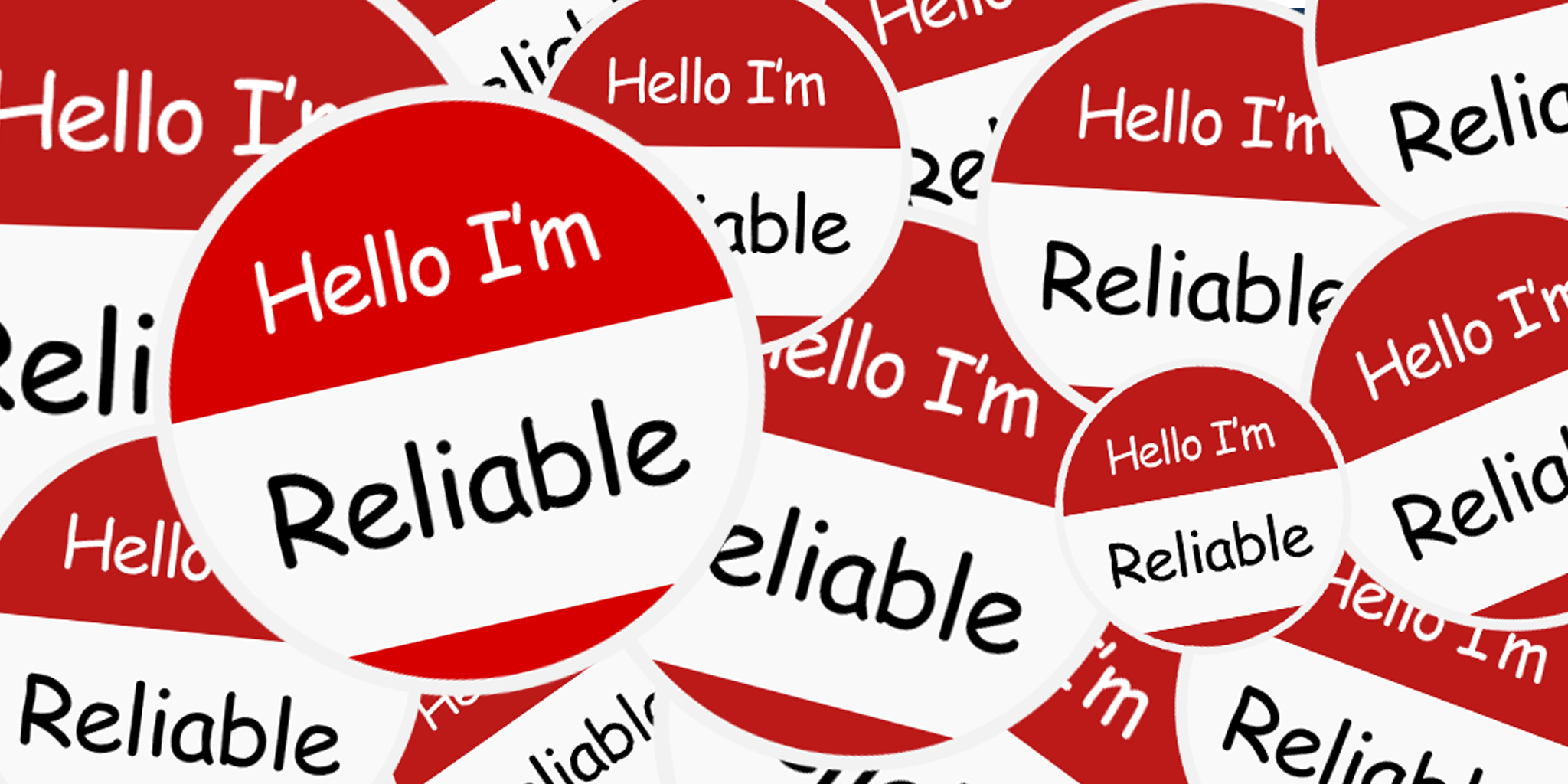
The marmite of typefaces; Comic Sans has become its own cliché but remains one of the most popular fonts in the world. In fact, a survey conducted by the printing company, Solopress, revealed that Comic Sans is the UK’s second go-to font for official-looking documents falling short of the title behind Times New Roman.
But not everybody would agree on its use on an official-looking document.
The jaunty typeface that lurks in the depths of your hard-drive has become the target of its own online hate campaign which called for the font to be banned. But why has it inspired so much revulsion? Have we been too harsh on Comic Sans?
Type designer Vincent Connare formulated the cartoony typeface for a kid’s computer program called Microsoft Bob in October 1994. The software featured a dog named Rover who gave tips and advice in speech bubbles. The beta version of the computer programme was using Time New Roman for Rover’s speech balloons, which Connare felt was giving the software an overly formal look which was inappropriate for a programme intended for a young audience.
“I booted [the programme] up and out walked this cartoon dog, talking with a speech bubble in Times New Roman. Dogs don’t talk in Times New Roman! Conceptually, it made no sense,” Connare told the Guardian in a March 28 interview.
To make Microsoft Bob more accessible for its intended audience Connare looked at speech bubble style lettering in graphic novels and comic books, specifically Watchmen and The Dark Knight Returns, for inspiration.
Despite Connare’s efforts, his boss didn’t like the font and thought it should be more typographic. Although the font didn’t make it to the release of Microsoft Bob, the font was later released in the Windows 95 Plus Pack in August 1995. Later, it was also included as one of the system fonts for the OEM versions of Windows 95, was used for a comic movie program called 3D Movie Maker, and is currently shipped with both Windows and Mac OS.
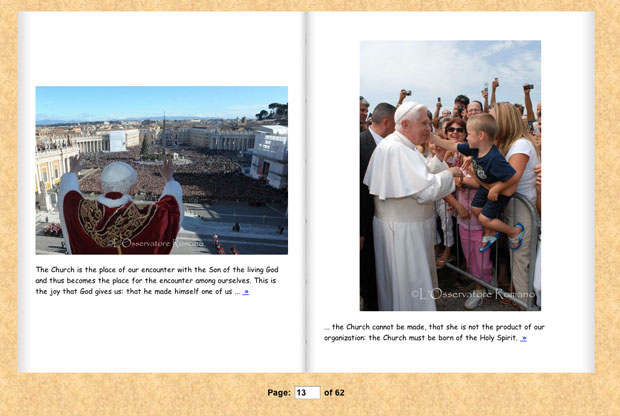
As soon as Comic Sans was made accessible to the average computer user, it spread like wildfire and was being used by a range of establishments including hospitals, offices, churches, restaurants, police stations, doctors, pubs and bars, and more to print serious information on posters, signs and newsletters.
There aren’t many places Comic Sans hasn’t been used – even the Vatican has used it.
The Vatican created a digital photo album to commemorate Pope Benedict XVI’s papacy after he resigned as Pope of the Catholic Church in 2013, and the entire thing was written in Comic Sans.
As the font started to gain traction, it started to divide the world and two typographers even started a “Ban Comic Sans” movement in 2002 that gained worldwide attention.
Connare argued that “people who don’t like Comic Sans don’t know anything about design… They don’t understand that in design, you have a brief.”
Creative Director Lee agrees, saying, “As ‘bad’ as Comic Sans is perceived to be – and we all like to joke about it – it’s bloody successful, isn’t it? It’s a great example of ‘function over form’. Comic Sans serves a purpose and is so functional for a range of purposes”
Every font has a unique personality and a purpose that can convey a mood, attitude and tone. For example, Times New Roman is considered to be a serious, formal font, whereas Comic Sans is a fun, childish, informal font.
Director Scott adds, “Although Comic Sans is frowned upon by designers, it serves a purpose to the masses being both easily read, handwriting-like (to a degree) and fun. Whereas Times would be the go-to font for a letter or a news piece, Comic Sans ticks the not so serious box for homemade newsletters and church flyers”.
As Comic Sans was originally designed to be used in a Microsoft programme aimed at a younger audience, it’s important to remember the context in which Comic Sans was created. It was only when the font was in the hands of Windows 95 users that the way it was used became ‘out of context’.
The issue is not with the font itself, Connare believes. “People use it inappropriately. If they don’t understand how type works, it won’t have any power or meaning to them,” he explained.
Comic Sans is popular for use with young children in primary schools and other childcare thanks to its fun, child-like appearance. The use of the font in this example is entirely appropriate and shows how it can actually be beneficial for children to learn. Whereas tributes, CVs and other formal documents are considered to be serious and thoughtful, so it is felt that they should be written in a font that reflects this.
Or perhaps the last Pope was a barrel of fun who loved Comic Sans and the Vatican just wanted to honour him with the font he loved most.